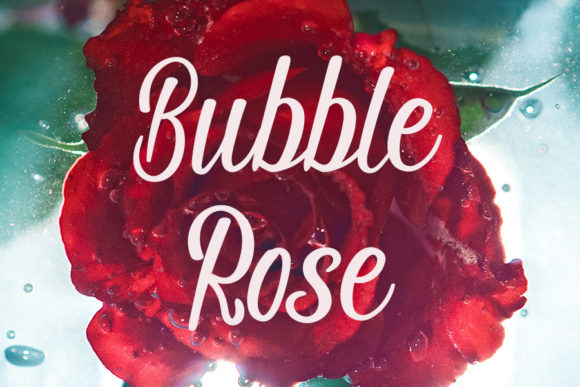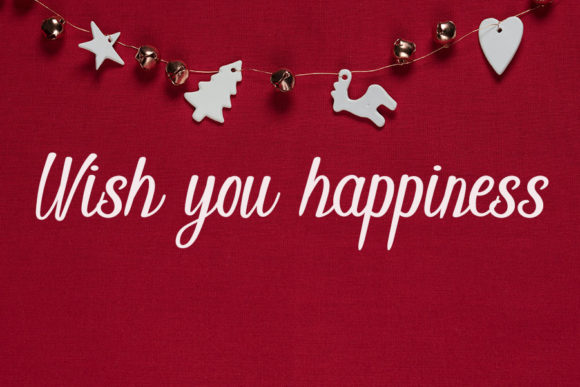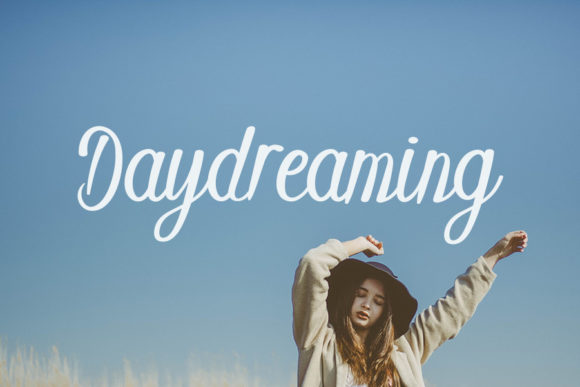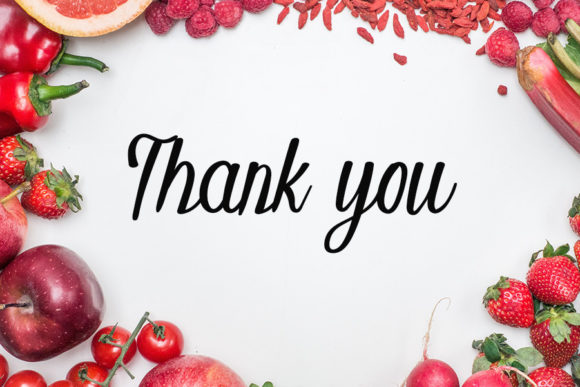
Introducing Claudy Font: Elevate Your Designs with a Unique Handwritten Style
Are you tired of using the same old fonts in your design projects? Look no further than Claudy Font, a beautiful and versatile handwritten font that is sure to add a lovely spark to any design you create. With its unique feel and stunning impact, Claudy Font is the perfect choice for designers and crafters looking to take their work to the next level.
What Makes Claudy Font So Special?
Claudy Font is a one-of-a-kind handwritten font that boasts a distinctive and elegant style. Its unique feel is characterized by flowing lines, subtle imperfections, and a charming personality that sets it apart from other fonts. Whether you’re working on a branding project, a website design, or a craft project, Claudy Font is sure to make a lasting impression.
Key Features of Claudy Font
- Unique and Versatile: Claudy Font is a highly versatile font that can be used in a wide range of design projects, from elegant and sophisticated to playful and whimsical.
- Handwritten Style: Claudy Font features a beautiful handwritten style that adds a personal touch to any design.
- Easy to Read: Despite its unique and artistic style, Claudy Font is highly legible and easy to read, making it perfect for body text and headlines.
- Multilingual Support: Claudy Font supports multiple languages, making it a great choice for designers working on international projects.
How to Use Claudy Font in Your Design Projects
Claudy Font is incredibly easy to use and can be incorporated into a wide range of design projects. Here are a few ideas to get you started:
- Branding and Logo Design: Use Claudy Font to create a unique and memorable logo that sets your brand apart.
- Website Design: Add a touch of elegance and sophistication to your website with Claudy Font, perfect for headings, titles, and body text.
- Crafting and DIY Projects: Use Claudy Font to add a personal touch to your crafting and DIY projects, such as handmade cards, invitations, and gift tags.
- Social Media Graphics: Create eye-catching social media graphics with Claudy Font, perfect for Facebook, Instagram, Twitter, and more.
Tips and Tricks for Getting the Most Out of Claudy Font
To get the most out of Claudy Font, here are a few tips and tricks to keep in mind:
- Experiment with Font Sizes: Claudy Font looks great in a wide range of font sizes, from small and delicate to large and bold.
- Play with Colors: Claudy Font can be used with a wide range of colors, from bright and bold to subtle and pastel.
- Mix and Match with Other Fonts: Claudy Font pairs well with a wide range of other fonts, so don’t be afraid to experiment and find the perfect combination for your design.
In conclusion, Claudy Font is a beautiful and versatile handwritten font that is sure to add a lovely spark to any design project. With its unique feel, stunning impact, and ease of use, Claudy Font is the perfect choice for designers and crafters looking to take their work to the next level. So why wait? Download Claudy Font today and start creating stunning designs that will leave a lasting impression!